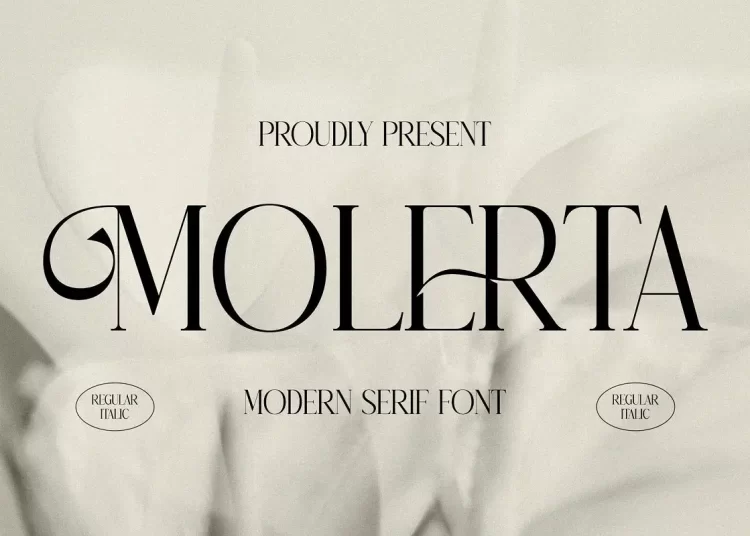
Molerta Slassic Serif Font
Introducing Molerta, a serif font that effortlessly blends modern aesthetics with classic elegance. With its unique style and contemporary appeal, Molerta Font is the ideal choice for a wide range of creative endeavors.
Whether you’re crafting an elegant and luxurious logo, designing book or movie titles, establishing a fashion brand identity, or curating content for magazines and clothing, Molerta Font offers the versatility to make your project stand out.